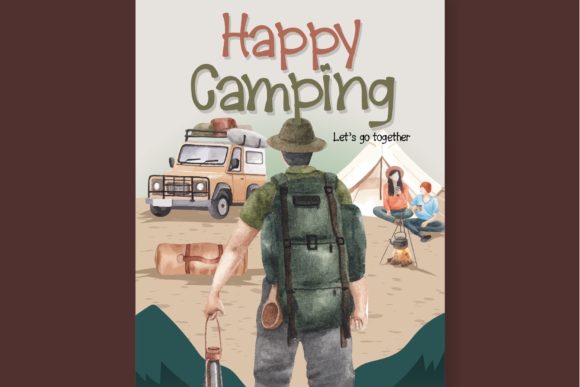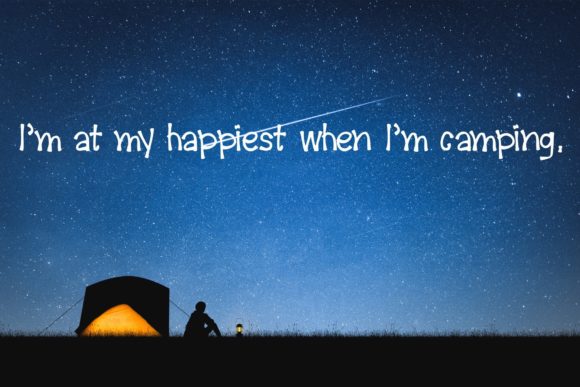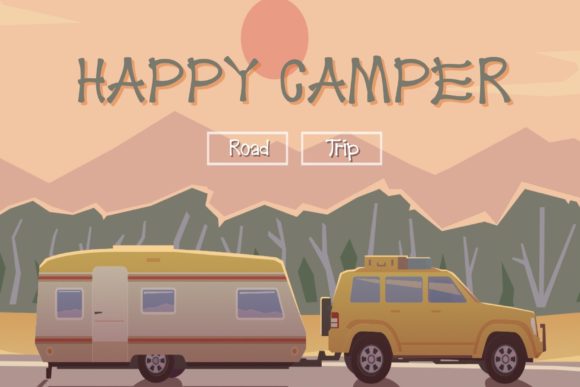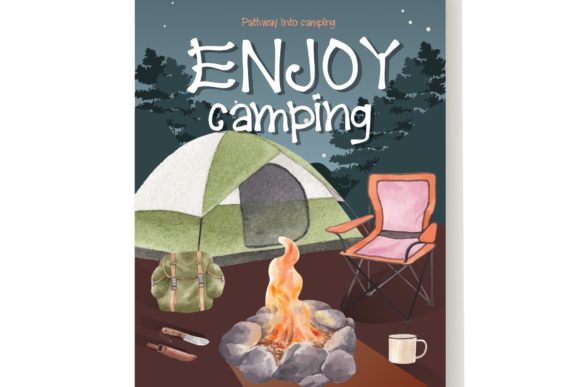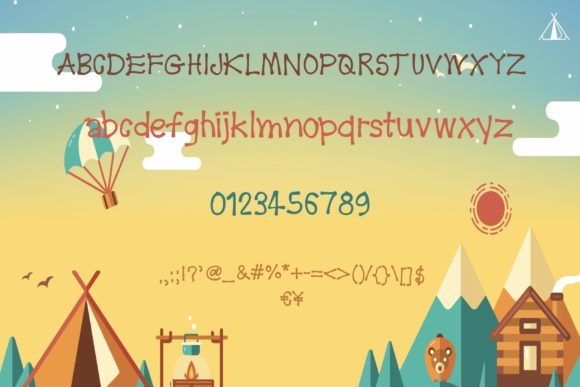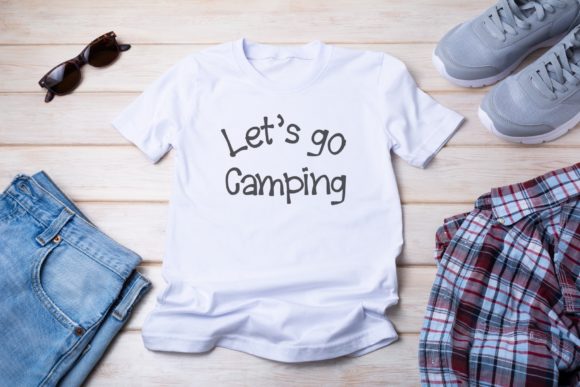
Introduction to Camping is Life Font
Camping is Life is a fun, friendly and cute display font.
Whimsical and a bit quirky, this font will brighten up each of your designs Add it confidently to your projects, and you will love the results.